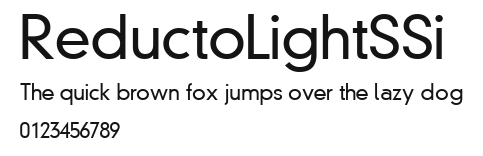
About ReductoLightSSi.ttf
ReductoLightSSi.ttf is a modern, elegant sans-serif font designed for ultimate readability and visual harmony. Perfect for branding, headlines, web design, and print materials.